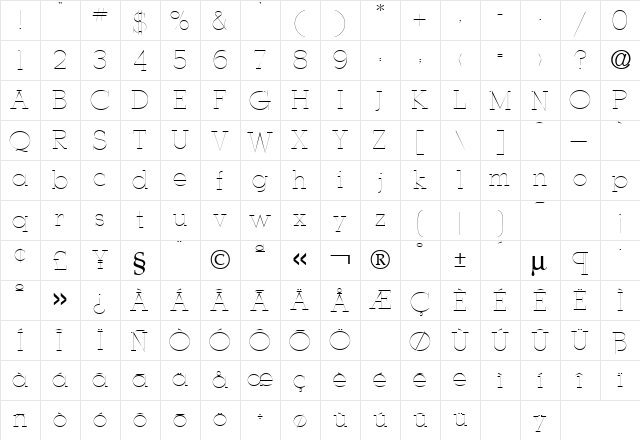
Stymie Hairline Regular
Design Context for Stymie Hairline Typeface
Stymie Hairline offers clean, dependable letterforms without strong stylistic allegiance, making it a practical choice for designers who need flexibility. The delicate stroke weight brings airiness and refinement to layouts.